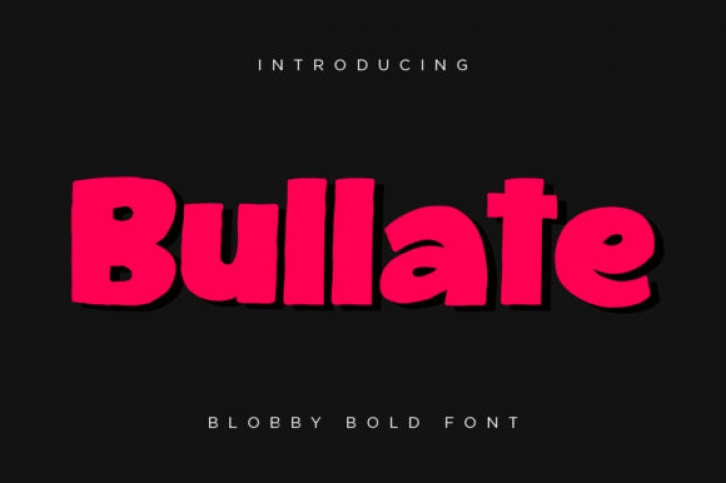
Bullate is a playful hand-drawn sans serif font. This enchanting display font will turn any creative idea into a true standout. Get creative with its childlike playfulness, and use it to brighten up any kids and school project!